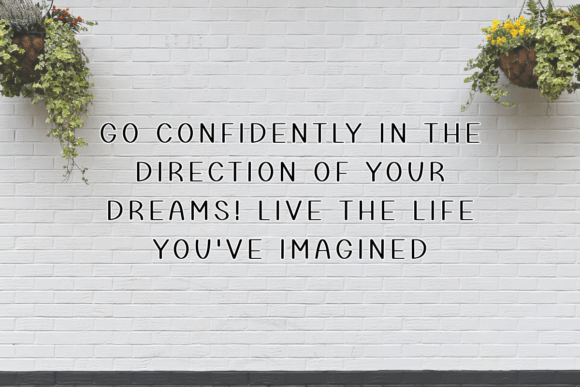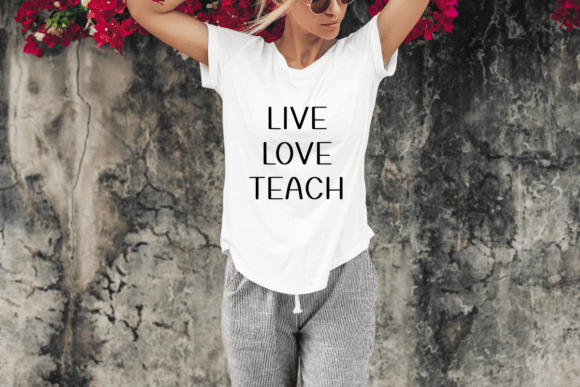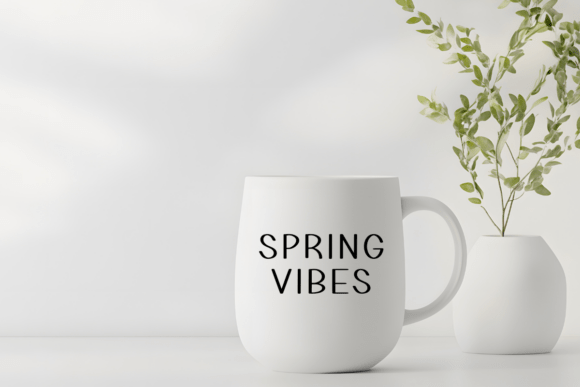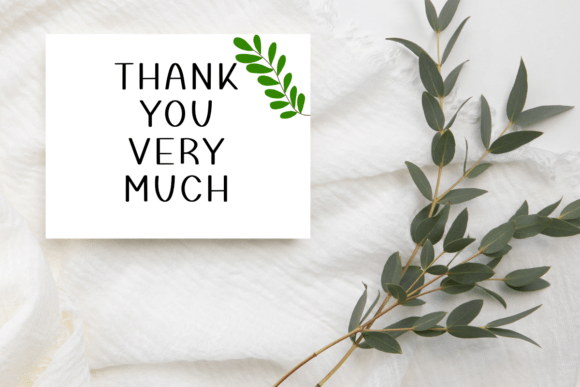
Introduction to Daily Answer Font
Have you ever stared at a blank canvas, waiting for the perfect spark to ignite your creativity? That’s exactly what happened to me the other day while working on a new project. I was searching for the perfect font to add a playful touch to my design, and that’s when I stumbled upon the Daily Answer Font. Its adorable handwriting style and natural vibes immediately caught my attention, and I knew I had to share it with fellow designers.
The Daily Answer Font is a game-changer for any creative project. Its high-quality design and transparent background make it perfect for various applications, from digital to physical. Whether you’re working on a planner, a mug, or a greeting card, this font will add a touch of cuteness that’s hard to resist. And the best part? It’s available for free download, making it a valuable addition to any designer’s toolbox.
Key Features of Daily Answer Font
- High-quality design: Daily Answer Font is crafted with attention to detail, ensuring a professional look for any creative project.
- Transparent background: The font’s transparent background allows for seamless integration with any design, making it ideal for creative projects.
- Resolution and size: The font is available in high-resolution (300 DPI) and various font sizes, ensuring crisp and clear readability.
- Unique characteristics: Daily Answer Font features a unique blend of modern and vintage elements, making it perfect for designers looking for a one-of-a-kind design resource.
Honest Review: Daily Answer Font
I recently came across the Daily Answer Font and I’m excited to share my thoughts on this free download. As a designer, I’m always on the lookout for high-quality fonts that can elevate my creative projects.
- Unique and creative design: The Daily Answer Font has a distinctive look that sets it apart from other fonts in its category.
- Transparent background: This feature makes it easy to use the font on any design resource, including images with complex backgrounds.
- High-quality design: The font is well-designed and looks great at various font sizes and styles.
- Limited font styles: While the font is unique, it’s only available in a few styles, which might limit its versatility.
- No bold or italic variations: If you need to emphasize text, you’ll have to rely on other fonts or use workarounds.
Overall, I’m impressed with the Daily Answer Font’s design and versatility. While it has some limitations, it’s a great addition to any design resource collection. If you’re looking for a free, high-quality font for your creative project, I’d definitely recommend giving it a try.
Tips for Getting the Most Out of Daily Answer Font
To get the most out of the Daily Answer Font, use it on a transparent background to create a clean and minimalist design. You can also combine it with other design elements to create a unique and creative project.
The Daily Answer Font is ideal for use in a variety of creative projects, including infographics, brochures, and social media graphics. Its high quality and versatility make it a great addition to any design resource collection.
Can I use the Daily Answer Font on a transparent background, and are there any color limitations?
The Daily Answer Font is designed to work well on transparent backgrounds, allowing you to create visually appealing designs with ease. There are no color limitations, and you can use the font with any color scheme or design style you prefer. However, please note that the font’s transparency may not work correctly in all software or applications.